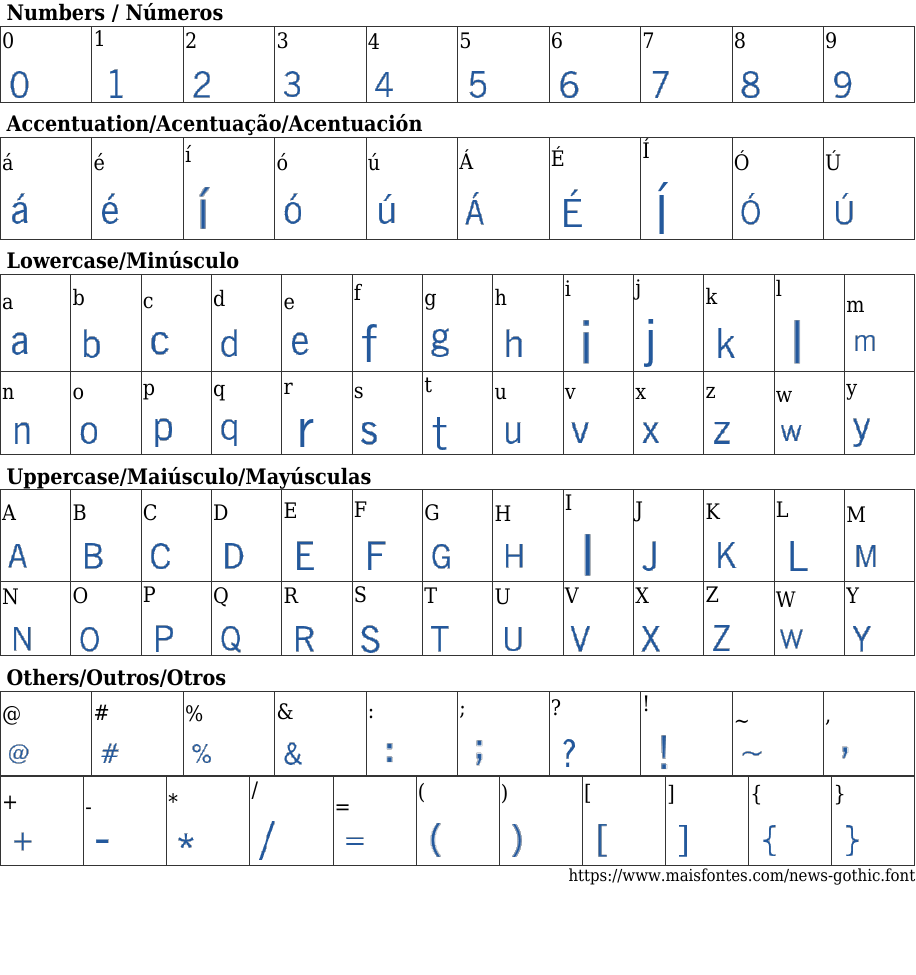
Download News Gothic Font . Web news gothic bt™ font field guide including best practices, font pairings and alternatives. The font subfamily is regular.
Designed by morris fuller benton and released in regular (1908), extra condensed (1908), and condensed (1909) styles. The original design, with two condensed faces, is essentially a light version of. Web news gothic was created by morris fuller benton in 1908 and presented by the american font foundry american typefounders.
Designed by morris fuller benton and released in regular (1908), extra condensed (1908), and condensed (1909) styles. The original design, with two condensed faces, is essentially a light version of. A sans serif typeface with 4 styles, available from adobe fonts for. Web explore news gothic designed by morris fuller benton at adobe fonts.
Download News Gothic Font - The original design, with two condensed faces, is essentially a light version of. Web a bitstream version of news gothic that was created by morris fuller benton for american typefounders and first appeared in 1908. Designed by morris fuller benton and released in regular (1908), extra condensed (1908), and condensed (1909) styles. In 1908, morris fuller benton designed news gothic.
Download News Gothic Font - The original design, with two condensed faces, is essentially a light version of. The font subfamily is regular. In 1908, morris fuller benton designed news gothic for american type founders. Web a bitstream version of news gothic that was created by morris fuller benton for american typefounders and first appeared in 1908. Web news gothic bt™ font field guide including.
Download News Gothic Font - Web news gothic in use. Designed by morris fuller benton and released in regular (1908), extra condensed (1908), and condensed (1909) styles. Web news gothic was created by morris fuller benton in 1908 and presented by the american font foundry american typefounders. Web a bitstream version of news gothic that was created by morris fuller benton for american typefounders and.
Download News Gothic Font - A sans serif typeface with 4 styles, available from adobe fonts for. Web explore news gothic designed by morris fuller benton at adobe fonts. Web news gothic bt™ font field guide including best practices, font pairings and alternatives. Designed by morris fuller benton and released in regular (1908), extra condensed (1908), and condensed (1909) styles. The font subfamily is regular.
Download News Gothic Font - The font subfamily is regular. Web news gothic in use. Web news gothic was created by morris fuller benton in 1908 and presented by the american font foundry american typefounders. Web news gothic bt™ font field guide including best practices, font pairings and alternatives. News gothic is the perfect font for all your fun designs.
Download News Gothic Font - Web news gothic was created by morris fuller benton in 1908 and presented by the american font foundry american typefounders. The original design, with two condensed faces, is essentially a light version of. Web a bitstream version of news gothic that was created by morris fuller benton for american typefounders and first appeared in 1908. A sans serif typeface with.
Download News Gothic Font - A sans serif typeface with 4 styles, available from adobe fonts for. Web news gothic bt™ font field guide including best practices, font pairings and alternatives. News gothic is the perfect font for all your fun designs. Web a bitstream version of news gothic that was created by morris fuller benton for american typefounders and first appeared in 1908. Designed.
Download News Gothic Font - Designed by morris fuller benton and released in regular (1908), extra condensed (1908), and condensed (1909) styles. A sans serif typeface with 4 styles, available from adobe fonts for. News gothic is the perfect font for all your fun designs. Web explore news gothic designed by morris fuller benton at adobe fonts. Web news gothic was created by morris fuller.
Download News Gothic Font - The original design, with two condensed faces, is essentially a light version of. A sans serif typeface with 4 styles, available from adobe fonts for. News gothic is the perfect font for all your fun designs. Web news gothic in use. Designed by morris fuller benton and released in regular (1908), extra condensed (1908), and condensed (1909) styles.
Download News Gothic Font - Web news gothic bt™ font field guide including best practices, font pairings and alternatives. Designed by morris fuller benton and released in regular (1908), extra condensed (1908), and condensed (1909) styles. Web a bitstream version of news gothic that was created by morris fuller benton for american typefounders and first appeared in 1908. In 1908, morris fuller benton designed news.
Download News Gothic Font - The original design, with two condensed faces, is essentially a light version of. Web a bitstream version of news gothic that was created by morris fuller benton for american typefounders and first appeared in 1908. A sans serif typeface with 4 styles, available from adobe fonts for. Web explore news gothic designed by morris fuller benton at adobe fonts. News.